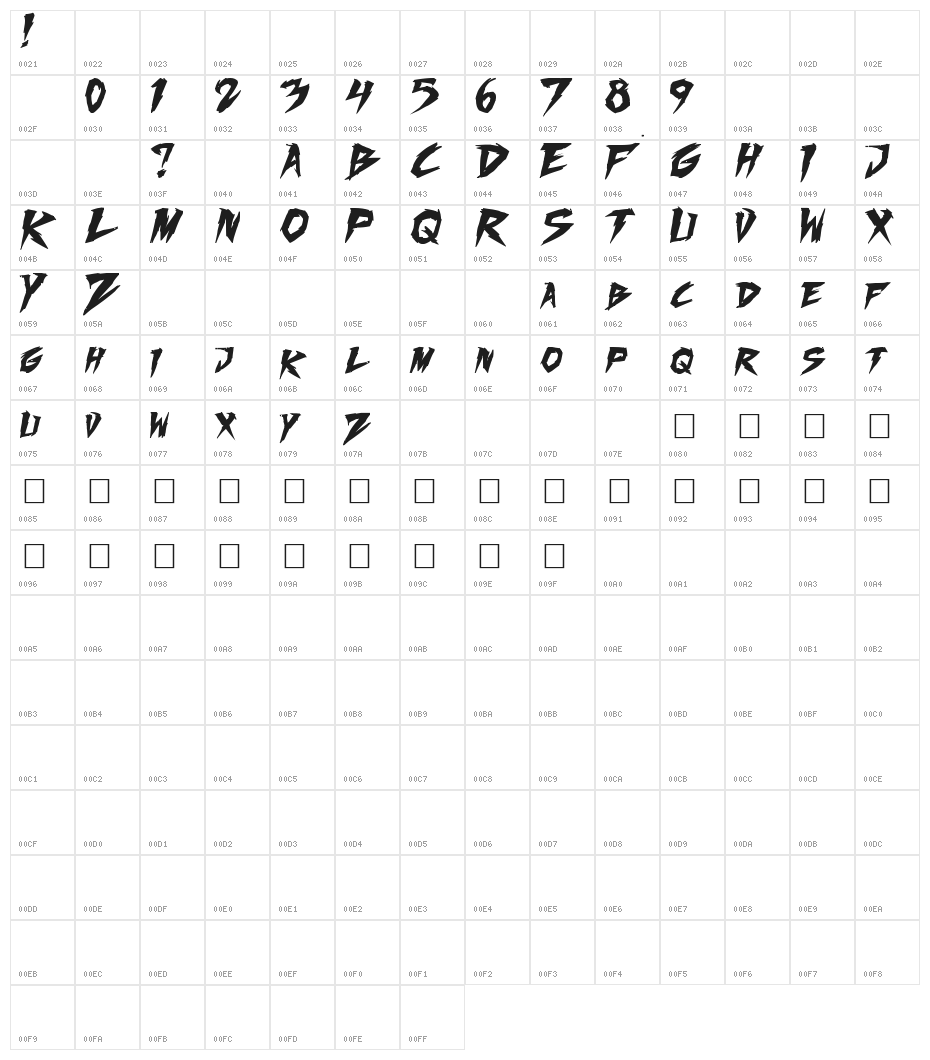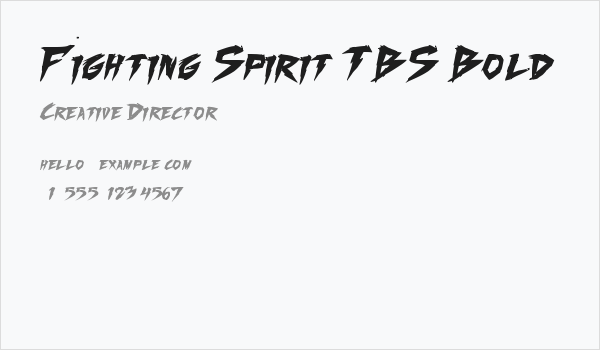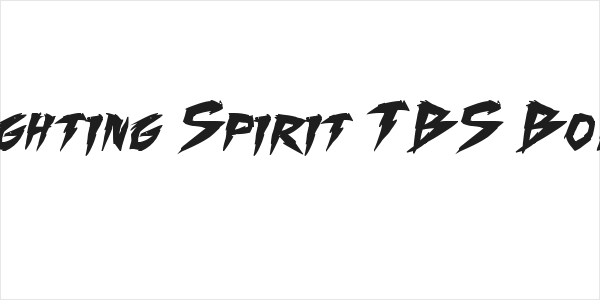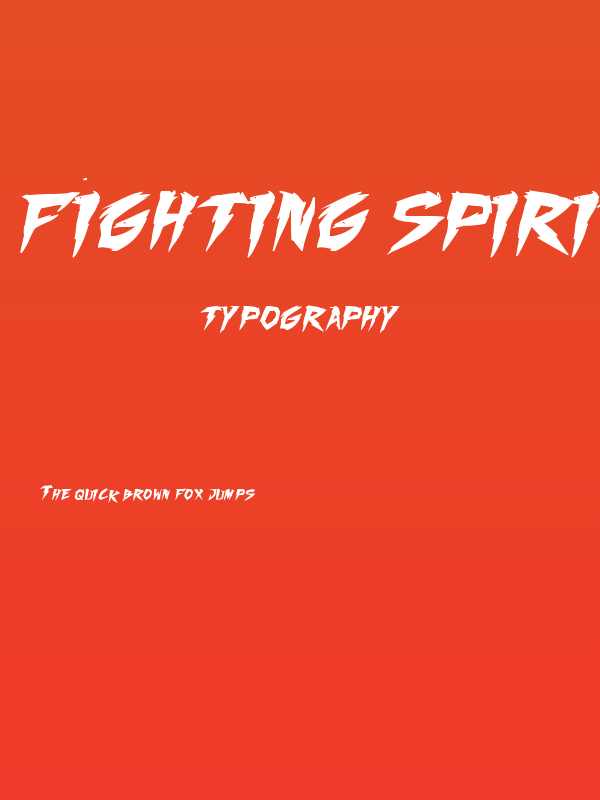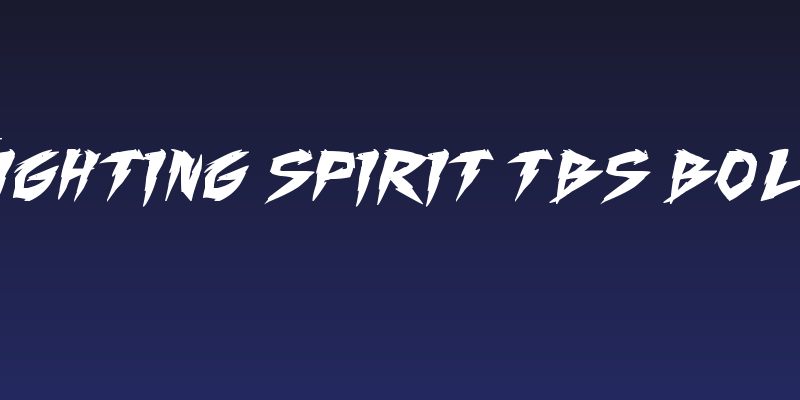
Fighting Spirit TBS Bold Font
Fighting Spirit TBS Bold Description
This font exudes a dynamic and aggressive energy, characterized by sharp, angular strokes and a bold presence. The letters are designed with jagged edges and a sense of movement, reminiscent of brush strokes or graffiti art. The uppercase and lowercase letters maintain a consistent style, with each character appearing to be in motion. The numbers and special characters follow the same energetic design, making the font suitable for projects that require a strong, impactful visual statement.
| Overall Style | Modern, Energetic |
| Proposed Projects | Ideal for sports branding, action-themed posters, video game titles, and edgy graphic designs. |